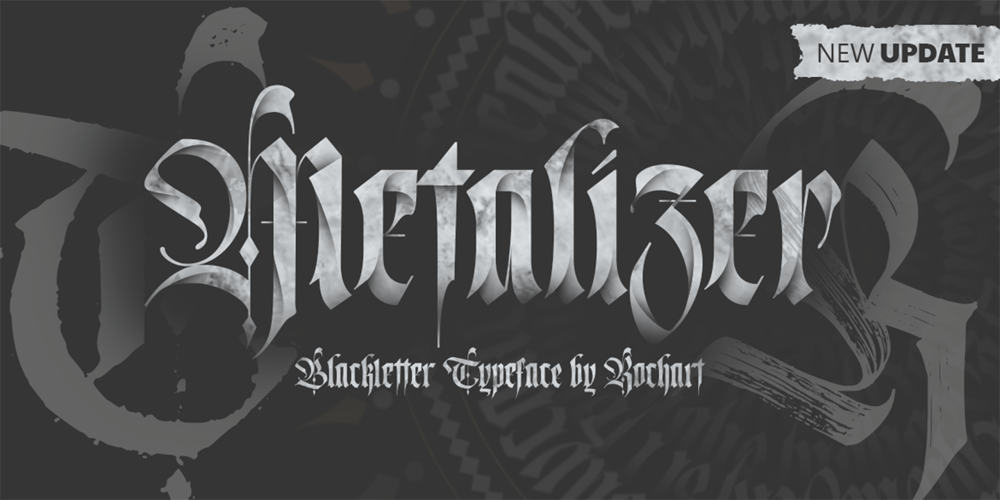
Metalizer Font Family was designed by Rochadi Sudarma and published by Rochart. Metalizer contains 1 styles and family package options. Metalizer sketched with calligraphy flat pen, then vectorized with Ai & generated with font creator. Inspired by the amazing style from Raghuveer G. Some Metalizer character is composed by broken strokes, adding a handmade feeling to this geometric kind of calligraphy.Metalizer contains some interesting alternates and ligatures that make this type more real.To enable the OpenType Stylistic alternates, you need a program that supports OpenType features such as Adobe Illustrator CS, Adobe Indesign & CorelDraw X6-X7.Guides to access all alternates glyph : http://adobe.ly/1m1fn4YCheers!